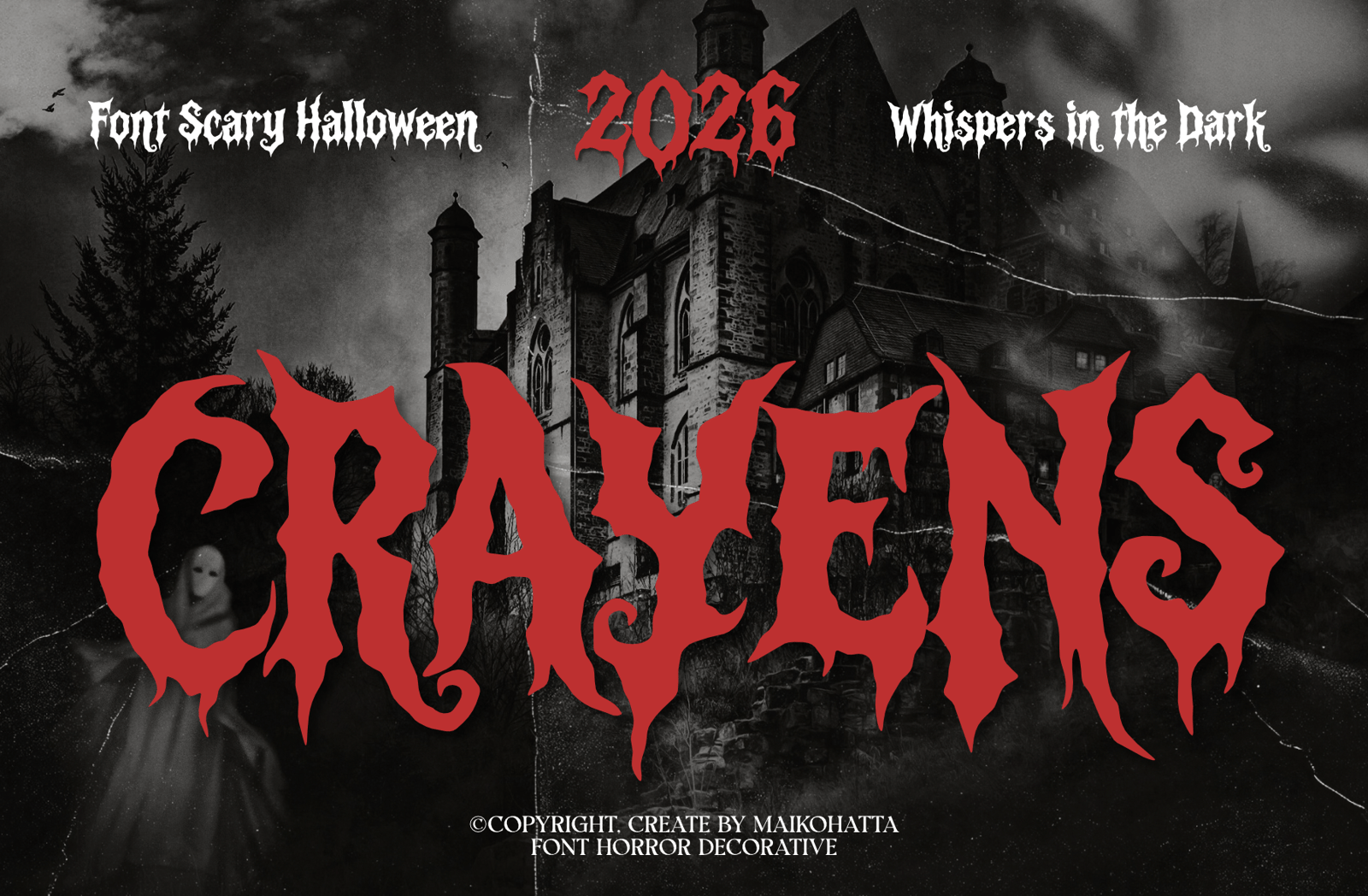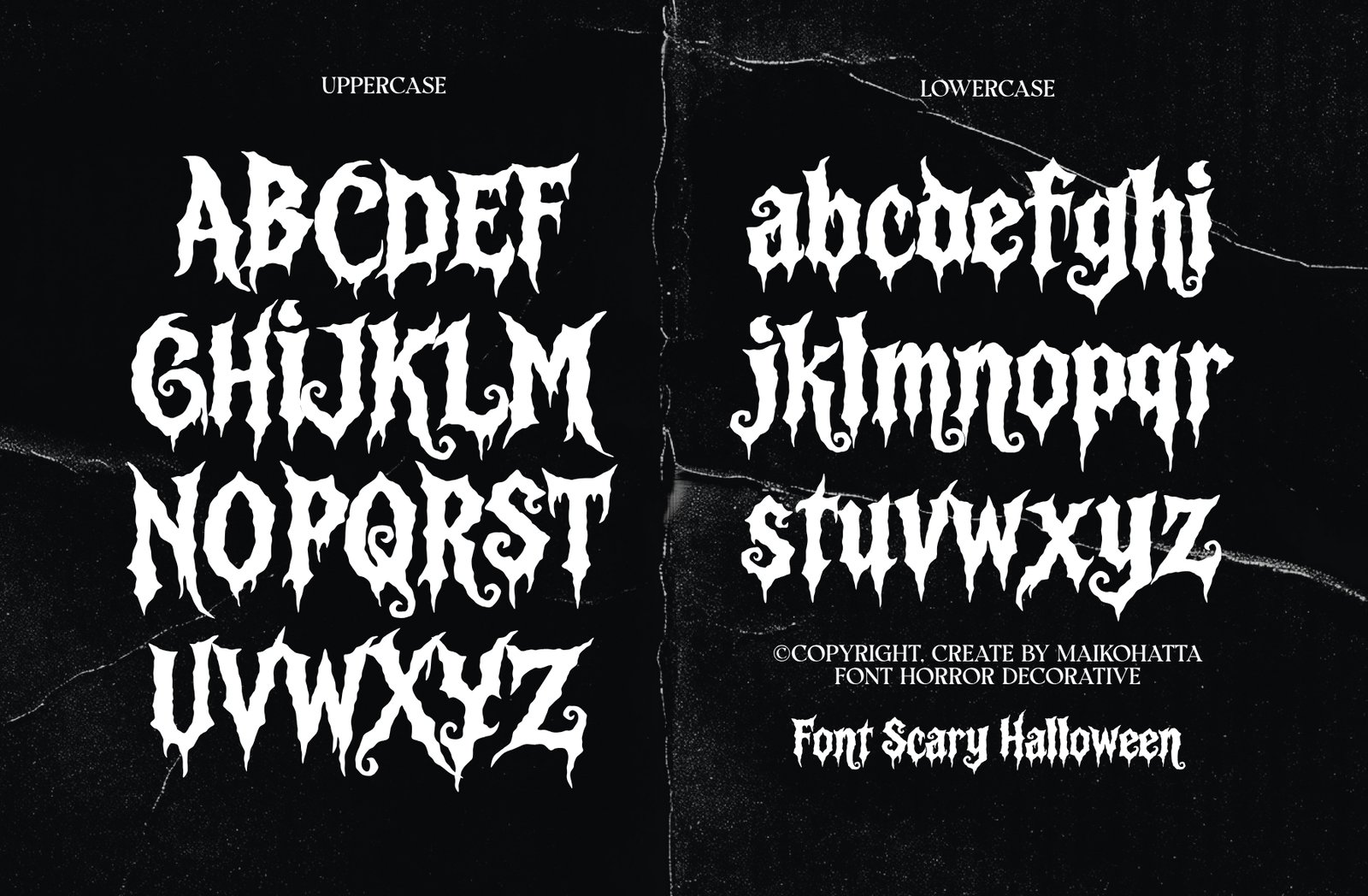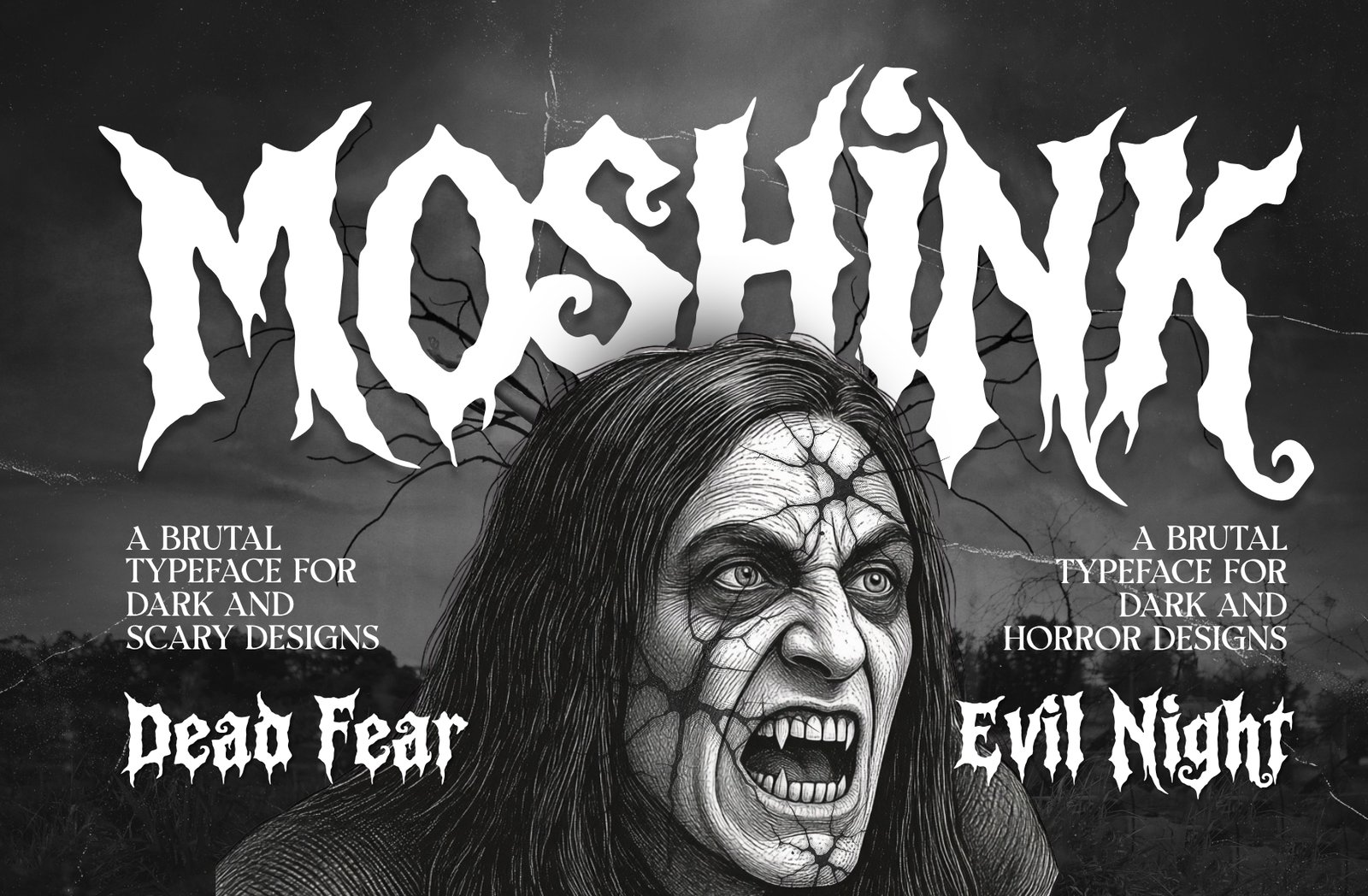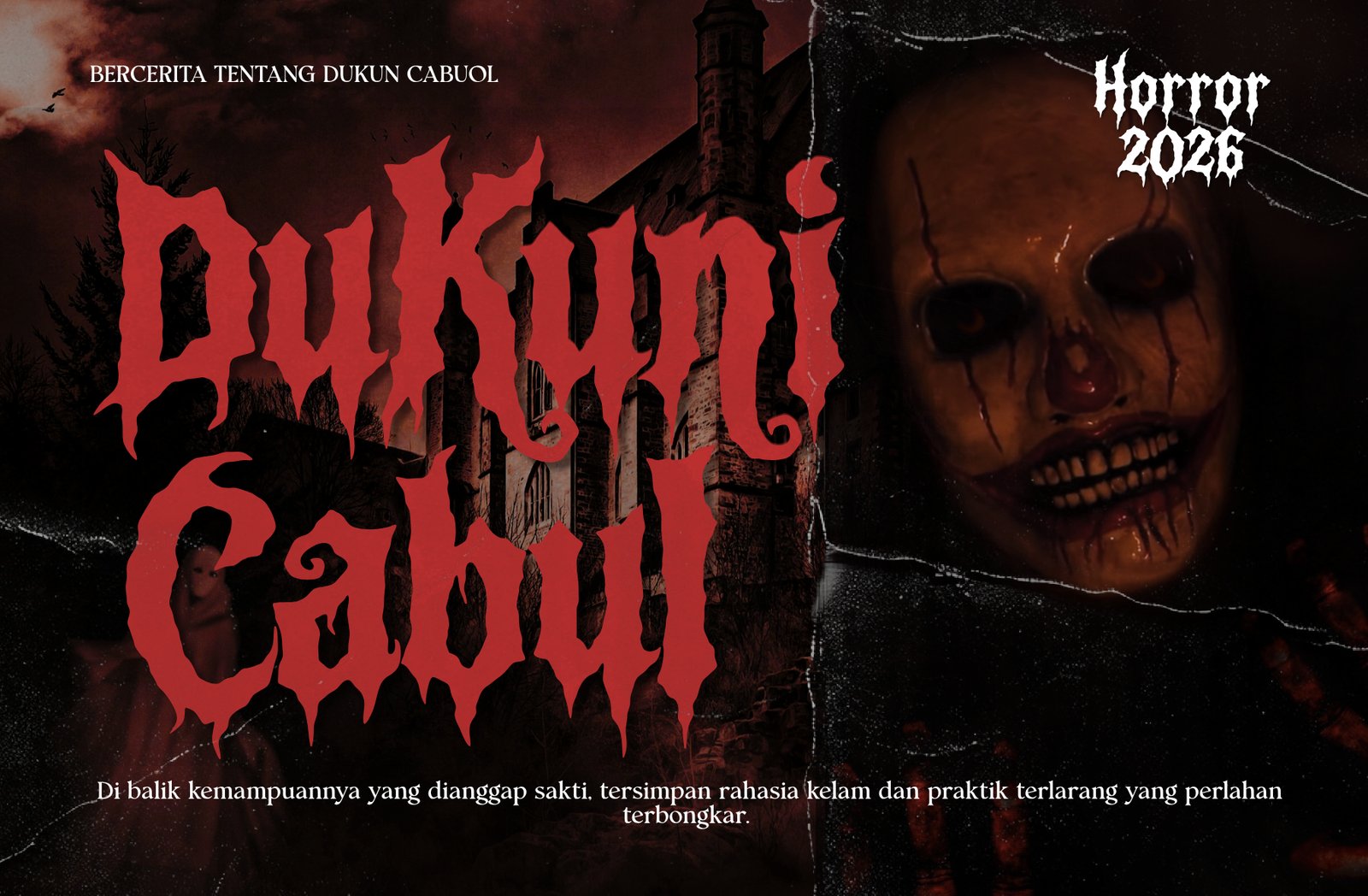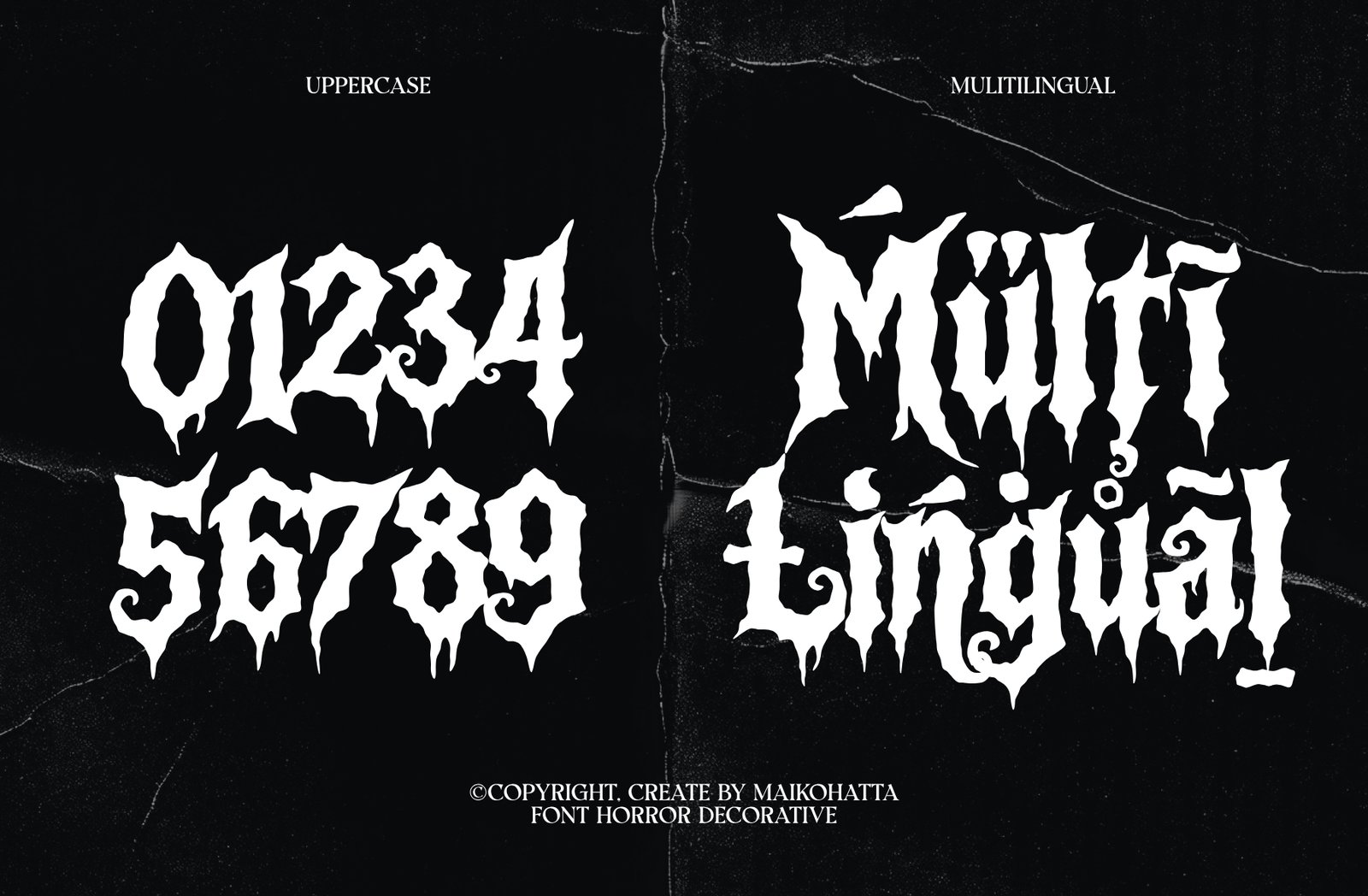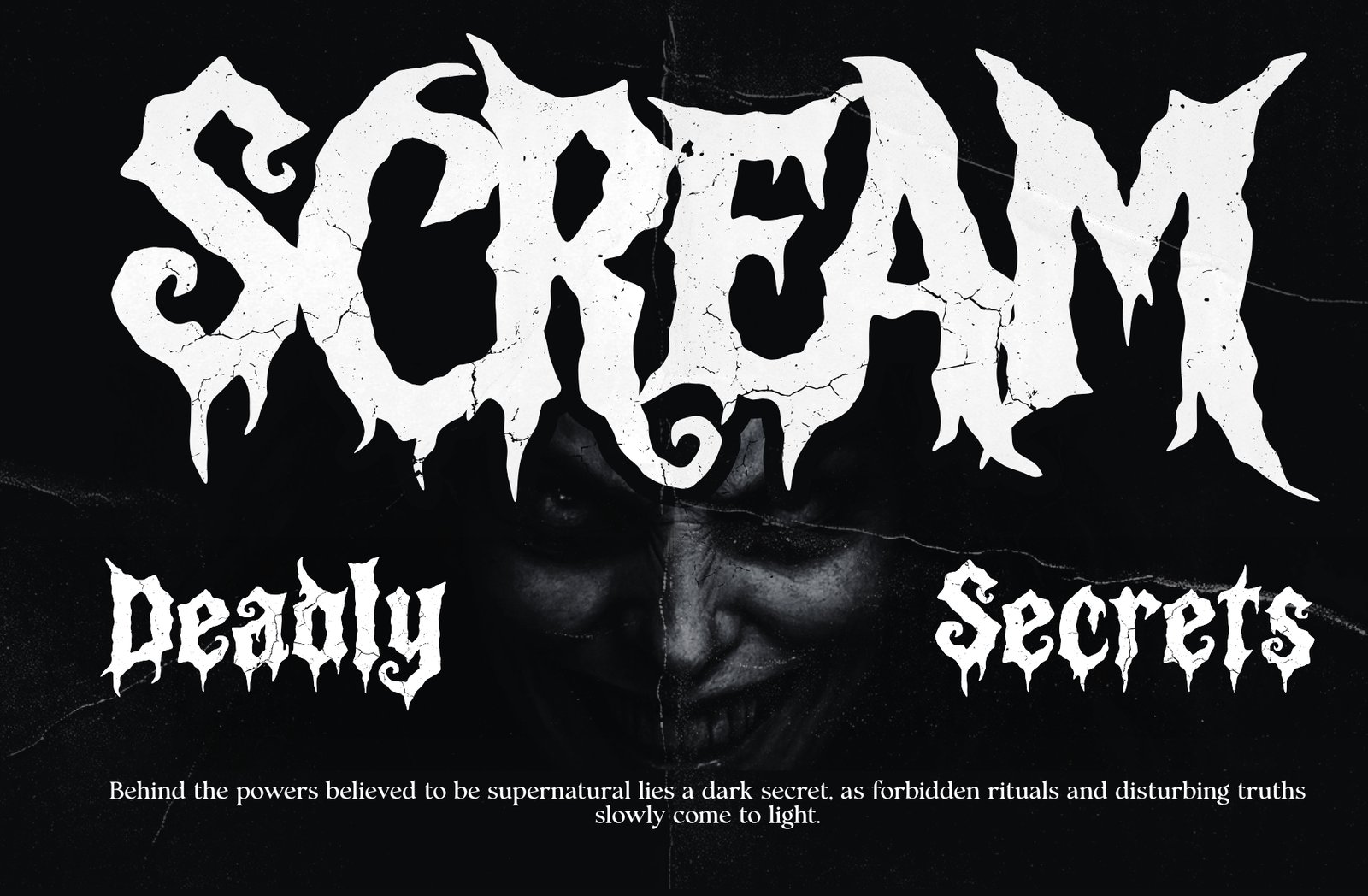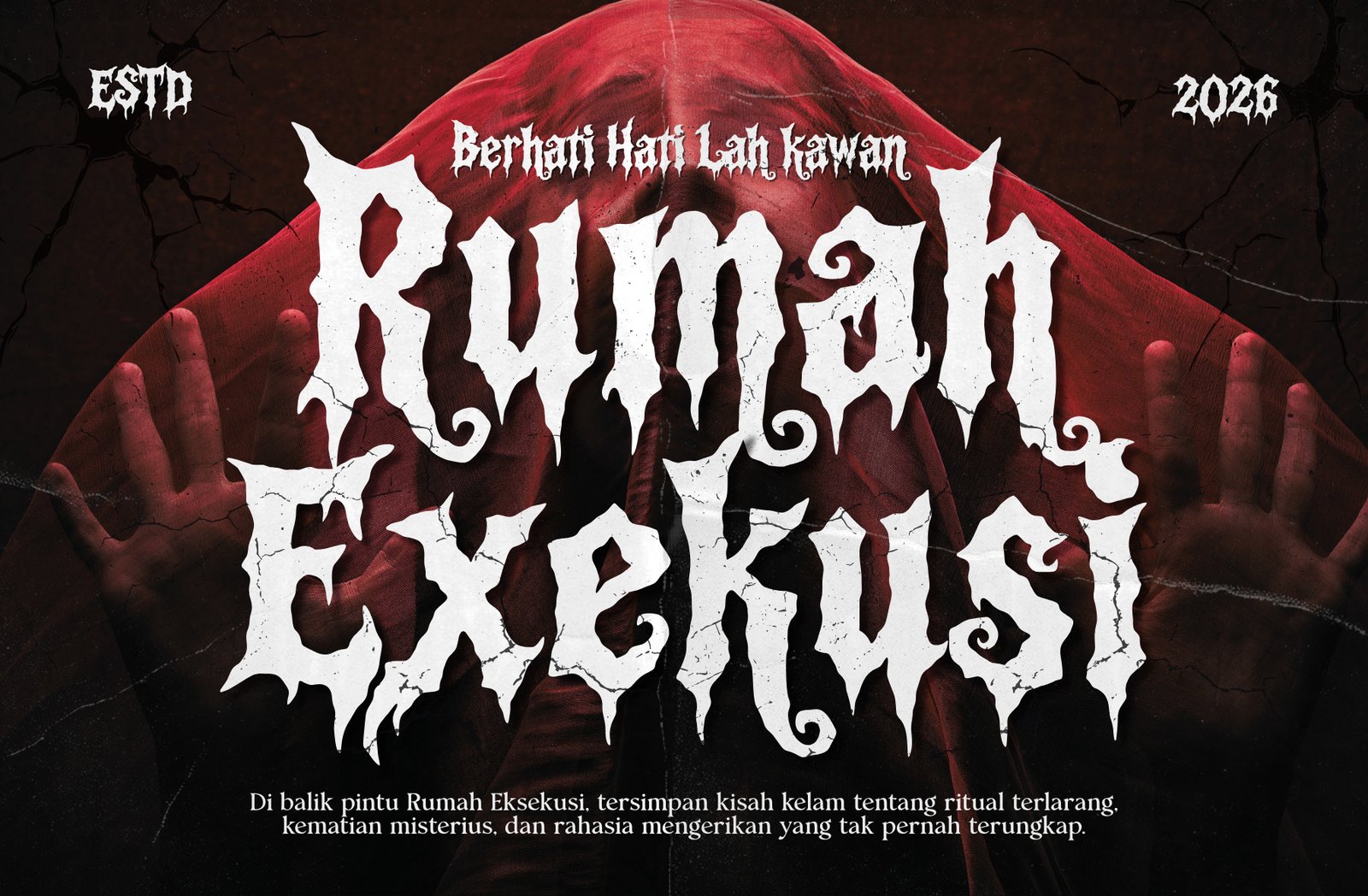
Crayens – Gothic Horror Display Font
Introducing Crayens – Gothic Horror Display Font
Crayens is a dark and haunting gothic horror display font inspired by classic horror movies, haunted stories, and mysterious gothic aesthetics. Featuring dramatic letterforms, sharp details, distorted shapes, and an eerie atmosphere, this typeface brings a bold and sinister character to every design. Its distinctive and expressive letterforms are designed to make headlines stand out while maintaining a strong horror and gothic personality. Whether you are creating a terrifying movie title, a mysterious poster, or a dark logo, Crayens adds an unforgettable atmosphere to your artwork.
• Uppercase & Lowercase
• Numbers & Punctuation
• Multilingual Support